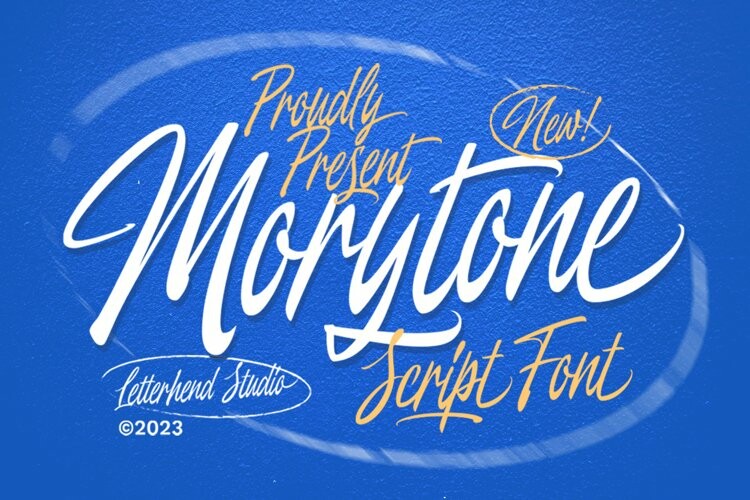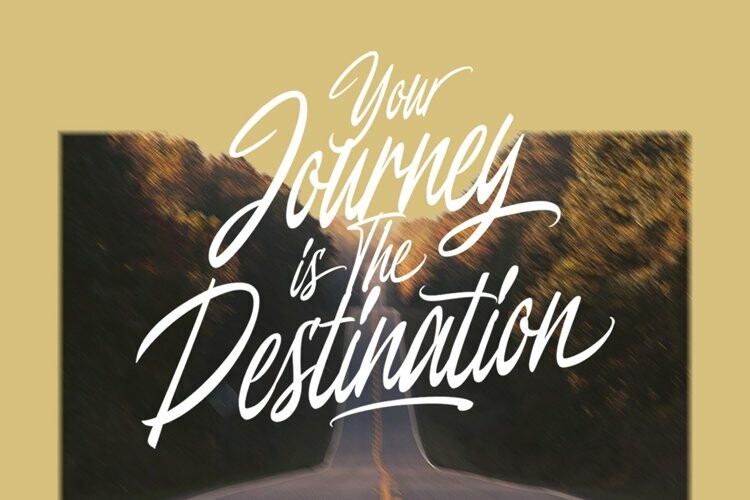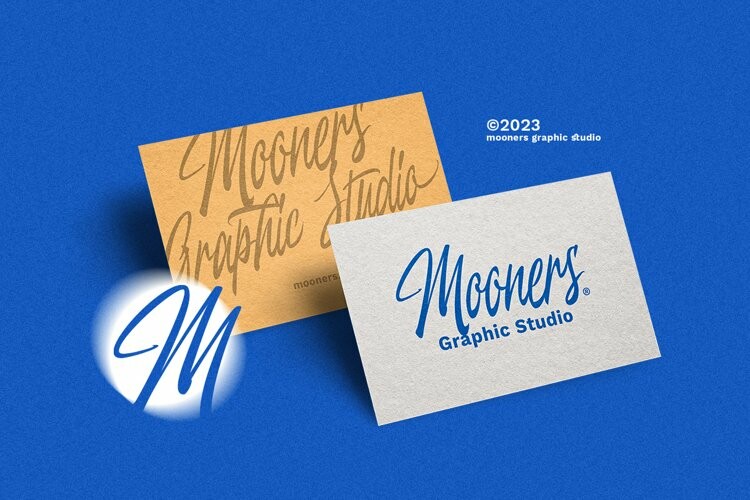
Morytone Font
Morytone FontMorytone is a hand drawn brush script which is purposely made for headline, display or logotype, and signature which need a standout appearing. This font is also suitable to be applied especially in logo, and the other various formal forms such as invitations, labels, logos, magazines, books, greeting / wedding cards, packaging, fashion, make up, stationery, novels, labels or any type of advertising purpose.